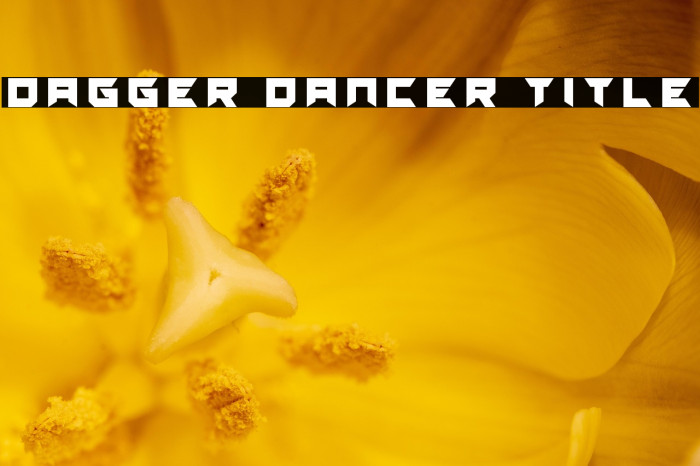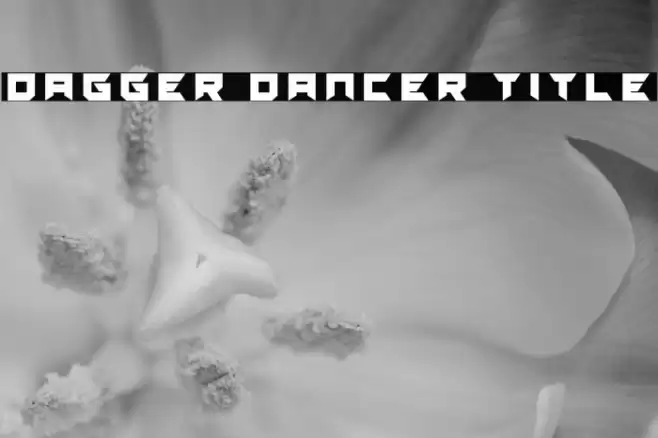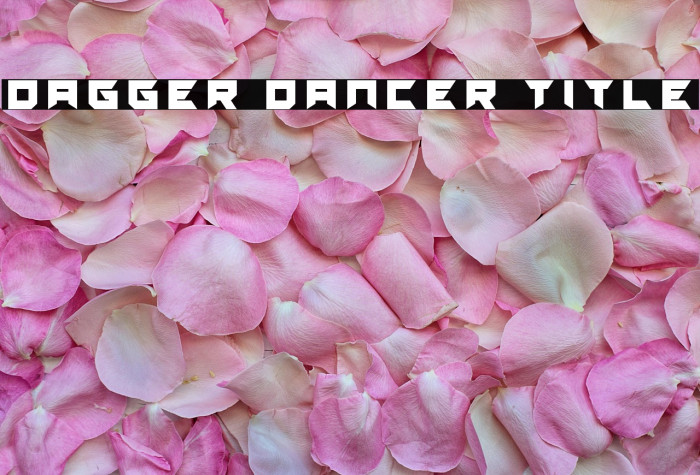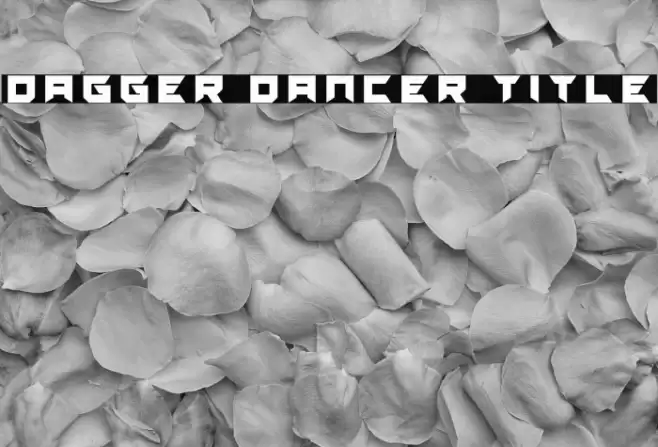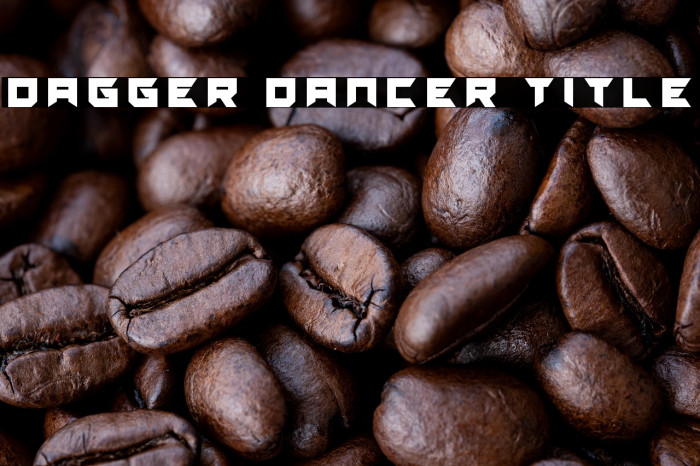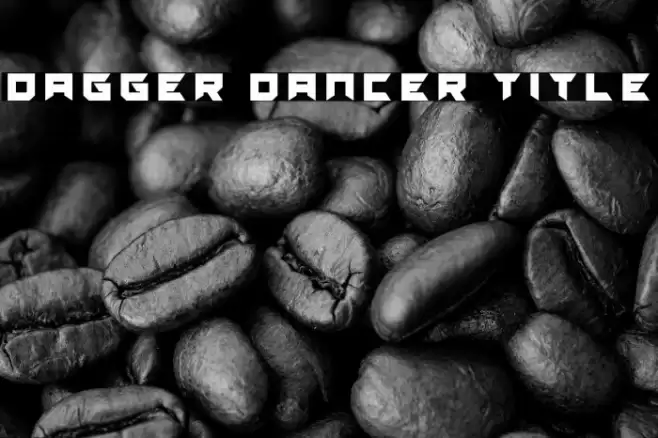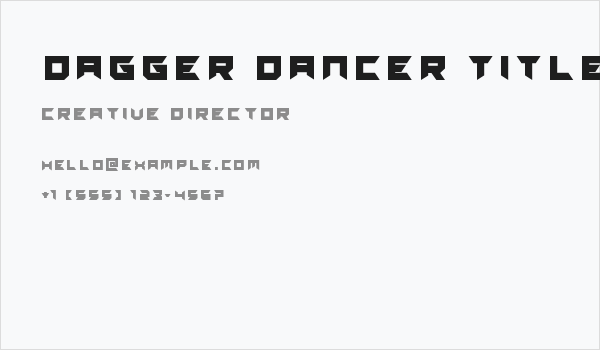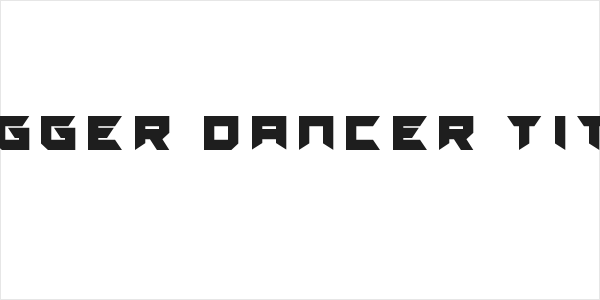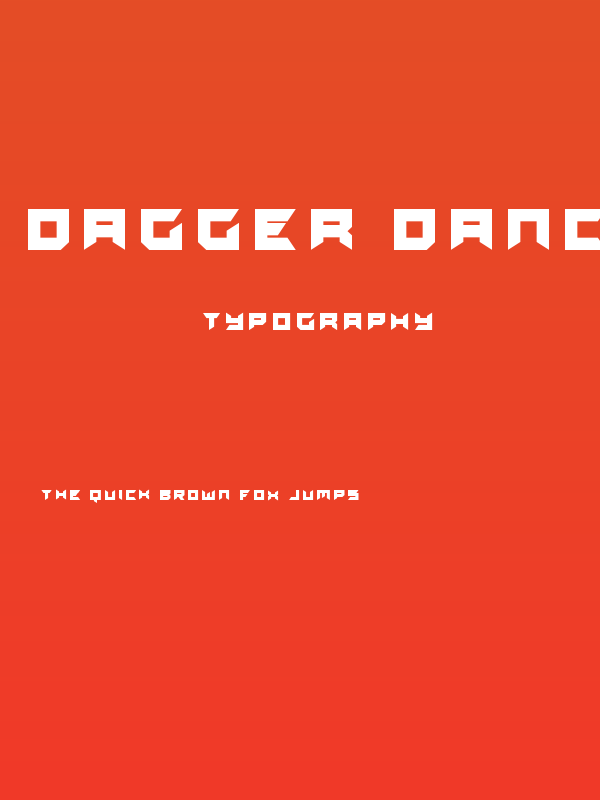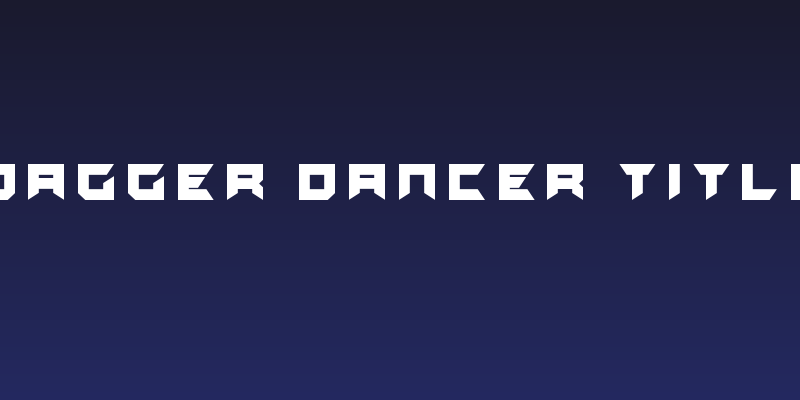
Dagger Dancer Title Font
Dagger Dancer Title Description
This font features a bold and angular design, characterized by sharp edges and geometric shapes. The letters are constructed with a futuristic aesthetic, giving them a distinct and edgy appearance. The uppercase and lowercase letters maintain a consistent style, with a uniform thickness throughout each character. The numbers and special characters follow the same design principles, ensuring a cohesive look across all elements. This font's unique style makes it stand out, offering a modern and striking visual impact.
| Proposed Projects | Ideal for sci-fi themed projects, video game titles, posters, and branding that requires a modern and edgy look. |